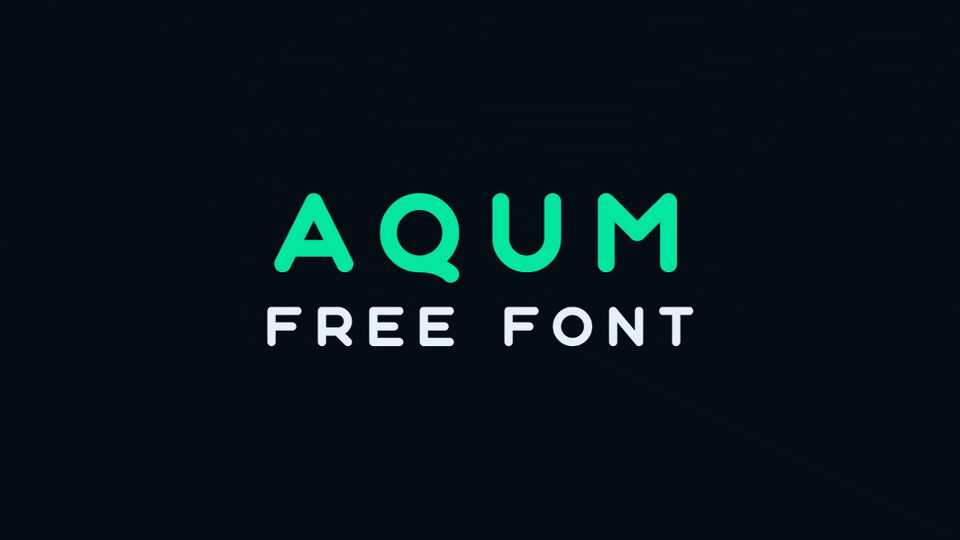
Download Aqum font, a geometric rounded display sans serif typeface with Cyrillic support. Aqum font fits great for logos and branding, headlines, posters, banners and other creative projects.
Designer: Slava Antipov